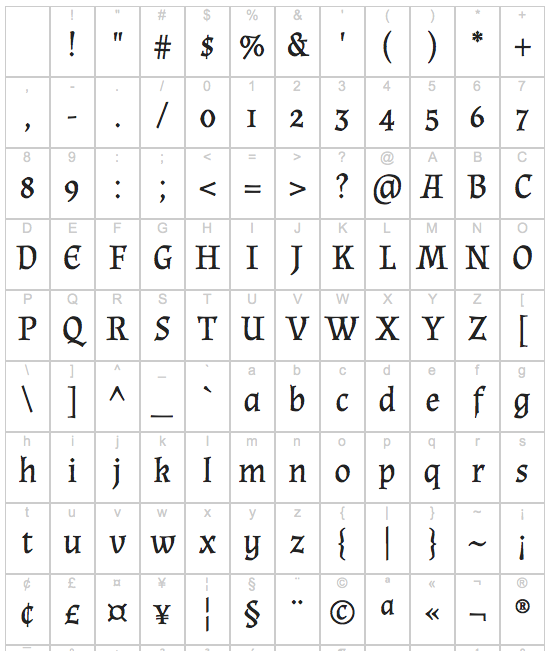
Calligraphic typefaces | ||
Design community headquartered in Bratislava, Slovakia. Creators of the commercial calligraphic typeface Feathergraphy (2013) [not to be confused with a font by the same name published much earlier by Mans Greback], Tzanah (2016; identical to a font by Dorian Grey), and Secret Society Font Family (2016; identical to another font by Dorian Grey). Icon sets designed by them include Sports Icons, Medical Icons, Flat Social Icons, and Vegetables. In 2017, they designed the distressed typeface Dark Matter [I thought that this was by Dorian Grey...] and the handcrafted Pugzley [again, by Dorian Grey, if you ask me]. In 2018, we find typeface such as the handcrafted Emily and the weathered gas mask font Verboten. [Google] [More] ⦿ | |||||||||||||||||||||||||||||||||||||||||||||||||||
Italian and other writing masters of the 16th century include
Dead link. Seventeen Swedish calligraphers: Kerstin Anckers, Susan Duvnäs, Karl-Erik Forsberg, Mona Gordon, Ludvig Grandin, Marie Anikó Györi, Lennart Hansson, Helene Henningson, Annika Larsson, Florian Kynman, Gun Larson, Lars Olof Laurentii, Erik Lindegren, Annika Rücker, Cecilia Skogh, Ylva Östberg Skarp, Marianne Pettersson Soold. [Google] [More] ⦿ | |||||||||||||||||||||||||||||||||||||||||||||||||||
1920s and 1930s in Travel Ephemera
| Travel brochure and travel poster lettering from the 1920s and 1930s, art directed by David Levine. [Google] [More] ⦿ | ||||||||||||||||||||||||||||||||||||||||||||||||||
2D Typo
In 2010, he went commercial as 2D Typo. The first typeface at 2D typo was the modular pixelish Pressure Drop 2D (2010). This was followed by Ornamental Deco 2D (2010, art deco ornaments), Rally Symbols 2D (2010), Mascaron2D (2010, by Iryna Korchuk), Depot Trapharet 2d (2010, a stencil based on the tram lettering in Lviv), Ascetic 2D (2005-2010), Hutsulyandiya (2010, extraordinary ornaments by Iryna Korchuk), Simeon (2010, calligraphic), Cranked Pipe 2D (2011), Tripyllia 2D (2011, ornaments of the neolithic Trypillya culture), and Ukrainian Barokko (2010, a calligraphic typeface by Genadij Zarechnjuk), Historism Border (2011, border ornaments), Moreske 2D (2012, ornaments), Geomanticus (2012, modular squarish sans). Typefaces from 2013: Bandelwerk (borders), Digital Stitch, Modern Wave (ornaments based on Alphonse Mucha), Hopferian (Roman caps after engravings by Daniel Hopfer (1470-1536)---typeface completed with help of Mariya Sokil), Simple Ribbon (art nouveau dingbats). In 2014, he created Angusto (an elegant narrow shaded display typeface family), Vindemiam (ornamental borders), Squamish (ornamental borders), UA Map (maps of Ukraine dingbats) and Bohemian Border. In 2014, Dmitry Rastvortsev, Lukyan Turetsky, and Henadij Zarechnjuk cooperated on the design of the free Latin / Cyrillic handwriting typeface Kobzar KS, which is based on the handwriting of Taras Shnvchenko, a famous Ukrainian poet, artist and philosopher. Typefaces from 2015: Finetitle (ornaments for headers), Gothic Herbarium (a floriated ornamental font based on the Gothic Revival ornaments developed by Augustus Pugin (1812-1852)), Old Depot (rough stencil), Francesca (decorative caps). Typefaces from 2016: Geometric Harmony (geometric ornaments), Dubster (which he describes as a technocratic modular font). Typefaces from 2017: Military Symbols. Typefaces from 2018: Strapwork (four ornamental typefaces with friezes, borders and motifs modeled after Balthasar Bos (1554) and 16th century mannerism). Typefaces from 2020: Lo Fi Copy (grungy and pixelish). Typefaces from 2021: Kolm Keltek (classical ornaments), Microdot (a dot matrix font). [Google] [MyFonts] [More] ⦿ | ||||||||||||||||||||||||||||||||||||||||||||||||||
38 Lineart Studio (or: Grayscale, or: Fontsources)
In 2018, he released the hexagonally-patterned color font Space, the nervous monoline display typeface Barcelona, the monoline script Brandy, the tattoo and metal band blackletter font Amstha, Twinkle (hexagonal texture), Premium Quality, Hightide (signage script), Ashley Pages, Bold Grunge (a wood style Western font), Rabbit House, Strongbold (brush style), Onthel (a rhythmic signage script), Cafeine, Seulanga (calligraphic), Sweet Bubble, Downhill, Architecture (technical writing font), Wisethink (rough brush), Emerald, Ghotic, Oakland (signage script), Parthenon (signage script), Strawberry Night (script), the formal calligraphic font Beauty Athena, the inline font Epicentrum, and the signature font Attitude in 2018. Typefaces from 2019: Ghoust (a marker font done at Cititype), Diamant Handwriting (a signature font), Utrecht (with Siti Saribanon Nurjannah), Exhibitionist (a fine rhythmic script), Holimount, Prague Metronome (a thin signature script), Allegroost (a brush typeface), Anisha (script), Kyoto Northern, ChiQuel (a Victorian display typeface that can be layered), Hillstone (a dry brush script), Malique, Ginchiest (a retro signage script), Kid Knowledge, Haghia, Khatija Calligraphy, Bernound, Graffity, Brandy Script (monoline), Downhill, Concept (sketched, blueprint font), Konya (signature script), Blacksmith, Curve Calibration (condensed sans). Typefaces from 2020: The Pallace (a great natural inky signature script by Muhammad Ridha Agusni and Siti Saribanon Nurjannah), Chipen (inline, all caps), Jakarta (a flowing inky script by Muhammad Ridha Agusni and Siti Saribanon Nurjannah), Rhode White (a great signature script by Muhammad Ridha Agusni and Siti Saribanon Nurjannah), Bailamore (a creamy signage script), Vogie (a sporty / techno sans family of 72 fonts, plus a variable font), Rollingtime (a brush script jointly designed by Muhammad Ridha Agusni and Siti Saribanon Nurjannah), Piedmont (a heavy connected handwriting script advertized as a masculine signature font), Whiplash (an all caps dry brush font), Aceh (a 36-style geometric sans), Youthink, Sacred Letter (a vintage weathered script), Serif Sketch (by Muhammad Ridha Agusni and Siti Saribanon Nurjannah), Corinthiago, Smart Chameleon (a handcrafted typewriter font by Muhammad Ridha Agusni and Siti Saribanon Nurjannah), Hiroshima Gyoshi (a brush font inspired by Japanese calligraphy), Roughmarker (dry marker font), Brotherhood, Blugie (a fat finger font), Rome Ionic (an all caps roman typeface), Black Orchestra (a great horror or black metal font), Black Orchestra (a horror font). Typefaces from 2021: Magreb (an 8-style renaissance serif typeface), Toxide (calligraphic; Celtic; uncial), Redtone (a 14-style geometric sans), Moula (an 18-style geometric sans for Latin, Greek and Cyrillic), Zouk (blackletter), Zagreb (an inky signature script by Muhammad Ridha Agusni and Siti Saribanon Nurjannah), Alsace (Victorian), Backbone (a black metal blackletter typeface), Roundkey (a 24-style condensed, but not round, sans), Wordwalker (a marker pen font by Muhammad Ridha Agusni and Siti Saribanon Nurjannah for Cititype), Sweet Bubble (a bubblicious font), Souljah (an elegant inky calligraphic script). Creative Fabrica link. Another Fontbundles link. [Google] [MyFonts] [More] ⦿ | ||||||||||||||||||||||||||||||||||||||||||||||||||
7N Types
Typefaces from 2013: Hurufo+Numero (sans family), Yaahowu (a rounded sans family), Gobold, Bryana Aningsih Shara (upright script), Gpkn (circle-based monoline sans). Typefaces from 2014: Smoolthan (monoline organic sans), Remponk (multilined), Playsir (comic book typeface), Defonarts, Tulisan Tangan 74, Fortheenas_01, Evogria (bold and mechanical), Anysome, Blackplotan, Dotcirful (dot matrix typeface), Handgley, Brokeren (techno sans), Headsome&Modif. Typefaces from 2015: Manophiser (sans), Theodista Decally (upright connected script), Upbolters (a macho sans caps typeface). Typefaces from 2016: Cutrims (a polygonal typeface), Xacose. Typefaces from 2017: Blessing in Disguise, Chirota (handcrafted), Hastoler, Merysha-Italic, Merysha (serif), SHAOutline, ShareHappinessAround (rounded sans), SomethingLooksNatural, Tentram-Italic, Tentram, Reitam (sans), Myfrida, Ribeat (smooth brush), Etchas, Goeslim, JulySeventh, Justtellmewhat, Offerings, Prohandy, Reprineato, Steagisler, Stea, Miss Nealy, Hastro, Dialoegue, Kisah Ceritra, Chesan, Boxise, Creword, Breetty, Anydore (calligraphic), Brushaff, Budiyaya (brush), Brotherina (connected script), Chosence (sans family), Handycheera, Aulyars (calligraphic script), Molleat. Typefaces from 2018: Freshness, Christed, Xyling, Youthing October Fourteen, Kayskew October Eleven, Hoty, Friday October Twelve, Codian October Nine (art deco), Caboge, Stripe October Seven, Nesdate October Ten, Codian October Eight, Odian October Nine, Stripe Shadow October Seven, Clambake October Six, Lovina October Five, Grande October Four, Grande October Three, The October Two, The October One, Favoner One, Homade McRacken, Besta Baru, Srows, Sanson, Bestar, Kathen, Byby, Charilla, CuteBeSpecial, FriendlySchoolmates-Italic, FriendlySchoolmates, GirlsMarks, HeartWarming, HeartWarmingExtra, Kaylonick, LearnShareColaborate-Bold, Mergic, MOGrhythm, OpenMinded, OpenMindedInside, PassiontoAction, PassiontoActionSlant, TeamWork-Italic, TeamWork, Yessy, Feltarigo, Motira, Adelio Darmanto, Troche, Nicolera, Mantul, Yukikato, Gebrina, Veni, Onadio, Aliena, Gabelisa, Still Loving, Shink, Sottee, Milyone, Kelidya, Yuliya, Hestina, Masbro, Goday, Milgun, Togetha, Thisay, Dhitha, Charline, Briany, Candire, Arinda, Anglena, Abilya, Story of Super Boys, Richela Kids, Seelyn, Pulen, Podo Moro, Sri Muliyo, Neigfriste, Hardino (monoline script), Purple River, Yoshephin, Theola Kids, All Season, All Season Ornaments, Hello Teman, Attracted Monday, Cirquesa, Hopeitissed (signage script), Hettas, Certhas, Fattana, Qeiza, Having Fun, Flotta, Soe, Misses, Siry, Mommy's Kitchen, Thany, Mother's Touches, Create Something Today, Well Bred, Cheria, Beatific Margella, Hidea, Gobold Blocky, Riztteen, Stika, Bintar, Ginta, Menscho, Hilona, Dehasta Momentos, Mungkin, Shartoll Light, Robaga Rounded, Ingat, Ascota, Klapjo. Typefaces from 2019: Homazing, Pre (script), Millythea, Rough Rough, The Friday Stroke (brush script), Anu, Dearly Loved One, Khalifa, Vesetia, Blending Attraction, Lova Valove, Quotable, The Simple One, Matchinger, Touch Over Next, Waiting For, Being Love, Lova Valove Serif, Clawster, Hopia, Sanson, Being Love Sans, Back To Ancient Time, Protector, Mystag, Oreta, Dearly Loved Slab One, Yep, Nuaz (a stitching font), Bronice, Nesdate October Ten. Typefaces from 2020: Sheroo (beatnik style), Thank You So Much, Styla, Racy Mango, Josy Wine (spurred), Lonely Melody, Alegra, Alenor, Conformable, Sweet Hansan, River Script, Kevin Aprilio, Jorby, Maines, Say Yes, Fish Grill, Flash on Saturday Night, Literally Natural, Lady Nature, Joyful Story, Brush Hours, Daily Walker, Free Monday, Mila Bright, Marchone, Githo Love, Fondacy, Jumat, Brastagi, Christiany, Feltarigo, Gabelisa, Gibran, Baligle, Do It With Love (a Valentine's Day font), Vecoly, Delightious, Ataro, Anticed, Cherrythea, Merrycle, Twolank, Atozimple (a monoline sans), Bikito (a curly script), Tyfanie, Hilya, Lonnie. Dafont link. Web site. Creative Market link. Creative Fabrica link. Another Creative Fabrica link. And another Creative Fabrica link. [Google] [More] ⦿ | ||||||||||||||||||||||||||||||||||||||||||||||||||
Aatype
In 2010, he created Dopamin (a high-contrast display sans), Square Comic, and Nilish (monoline geometric display sans). In 2011, Ahmet created the art deco chic family Turquoise, the techno sans family Altuna Sans, the semi-hand-printed Shirin, and the organic and elliptical monoline sans family Deria Sans. Sterk (2011) is a legible and open masculine sans family. Glode (2011) is a masculine geometric sans family. Calligra (2011) is an elegant almost calligraphic flared sans. Ephesus (+Shadow) is a caps-only titling sans family. Tillom (2011) is an elegant decorative face. Ondule (2011) is a horizontally-striped texture face. Brounde (2011) is a rounded monoline slab family. Eggy (2011) is a monoline sans display typeface with slightly shaky outlines. Uno (2011) is an organic display face. The display sans Veberk (2011) has contrast and style. Typefaces made in 2012: Halis Grotesque, Uneven (a bold poster typeface family), Ferforje (curly all caps face), Daphne (a hand-drawn all caps poster family), Mancho (a stylish caps only sans family), Cillop (elliptical sans), Typonil (elliptical sans), Omar (squarish poster font), Gulyesa Script (a beautiful informally hand-printed poster typeface), Smyrna (hand-printed poster face). Typefaces from 2013: Minik (a great hand-drawn typeface with tall ascenders and descenders), Festivo Letters (a popular hand-made layered font system with 19 fonts numbered No1 through No19; see also Festivo LC, 2014, which has new sketches, shadows and ornaments), Halis Rounded, Troia (a flexible sans family). Typefaces from 2014: Harman (a 7-style hand-drawn collection of retro poster fonts), Akon (hand-drawn poster family), Minimo (a geometric organic minimalist sans family in four weights). Typefaces from 2015: Racon (weathered type, perhaps letterpress emulation), Masif (heavy brush script renamed Pitos after 24 hours, most likely after a complaint from Monotype which markets a Steve Matteson font called Massif---Ahmet should have ignored that request as Monotype itself ignored Jean Joveneaux, who created another font called Massif in 1957, decades before Matteson's font), Deepika (swashy script), Tropen. Typefaces from 2017: Buket (an 18-font collection including Marquee, Roman Shiny, Fat Sketch, Script, Decorative Shiny, Basic Retro, and Prismatic). Typefaces from 2018: Narin. A geometric sans family with rounded corners. Typefaces from 2019: Revello (hand-painted and layered), Festivo Clean, Salve (a monoline script), Urfa (an 18-style sans family). Typefaces from 2020: Izmir (a 44-style geometric sans family), Grand Sword (a decorative all caps typeface). Typefaces from 2021: Urfa Rounded (an 18-style rounded elliptical sans). Typefaces from 2022: Sarmal (a great handlettered interlocking poster typeface), Punkto (an 18-style geometric sans). | ||||||||||||||||||||||||||||||||||||||||||||||||||
Abas Creative
| Or Muhammad Farhan Sholeh Ramadhika. Jakarta, Indonesia-based designer of the script typefaces Done Perfectly (2019), Bad Hunters (brush style), Yeager Gang (2019), Veltloved Babyatta Script (2019: monoline), Natasha Amelia (2019), Densha (2019), Sayangable (2019) and Russland (2019). In 2020, he designed Bacalisties (script), Glittery (script), Galligra (a calligraphic brush), Sportviper (an octagonal varsity font), Aishiteiru Lover (script), Rellyan Charlotte (script), Aesthete (script), Herland (script), Hi Mellati (script), Fritlany (script), Rossatelly (script), Hessthicc (a dry brush script), Rock Bottom (script), Lesistar, Mastherikur, My Kids Handwritten, Done Perfectly, Hathem Bosteem, Violleva (script), Rybeth (script), Bad Hunter Brush, Veltloved, Korean Looks (Hangul emulation), Pixeboy. Fontdaily link. [Google] [More] ⦿ | ||||||||||||||||||||||||||||||||||||||||||||||||||
Abduhan Fikhri
Abdul Manan
Born in 1945 in Kayseri, Turkey, Abdullah Tasci entered the Fine Arts Academy in 1967 and graduated from the Graphic Department in 1972. In 1982 he became Assistant Professor at Mimar Sinan University, and retired in 2000. In retirement, he designed font families such as Tasci Kursiv (2000, calligraphic), Tasci Kufi, Tasci Calligraphy and Nokta. Kufiz (2000, Latin) was influenced by the engravings of the Ottoman art and Rumi ornamentations. Tasci Kufi (2009) is constructivist. In 2010, he created the Tasci Sans, Serif and Tasci Condensed families. Tascinorm was published in 2014. [Google] [MyFonts] [More] ⦿ | |||||||||||||||||||||||||||||||||||||||||||||||||||
Alde Saputro
Aldiraya Pradipta
Aldy Sidik
Alejandro Paul